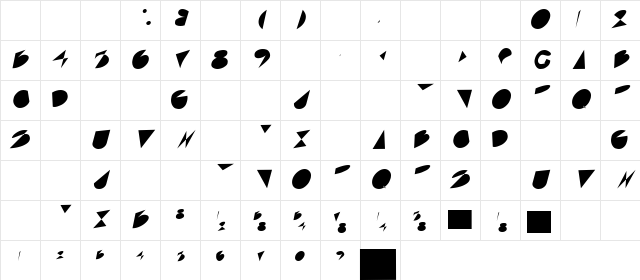
ArchiMedium Regular Free Font
ArchiMedium Regular
Complete ArchiMedium Regular glyph index. Displaying only characters natively supported by ArchiMedium Regular font.
Design Context for ArchiMedium
ArchiMedium is a composed and adaptable typeface that performs quietly and consistently across a wide range of design contexts.